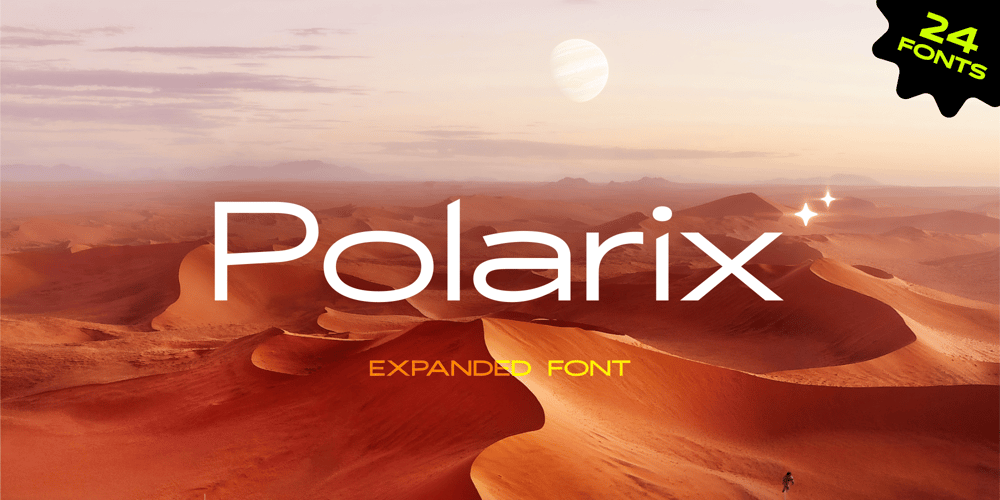
Polarix Font Family was designed by Arvind Kumar and published by Peninsula Studioz. Polarix contains 24 styles and family package options. Polarix is a modern expanded typeface tailored to elevate all your design projects, from UI and app design to web design, branding, posters, magazines, infographics, packaging, and beyond. With its wide and oval style, Polarix effortlessly radiates both professionalism and friendliness. Boasting 12 font weight variations, Polarix excels in delivering a multi-level content hierarchy in your design, ensuring your value is communicated clearly and easily.Key features:Extended language supportSmall capitalsMathematical symbolsCurrency symbolsAlternate stylish lettersDirectional arrowsFraction supportSpecial ligaturesNumerator and Denominator support